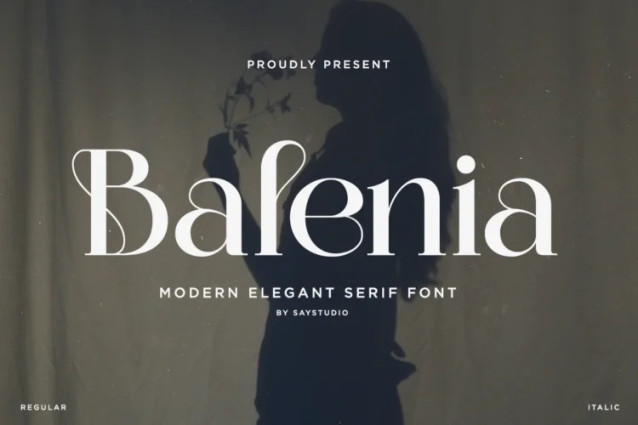
Balenia Font
Balenia Font a refined and sophisticated serif font that blends timeless elegance with contemporary design aesthetics. Perfectly suited for high-end branding, editorial design, luxury fashion, beauty products, and lifestyle-themed projects, Balenia stands out with its graceful curves, balanced contrast, and stylish character forms.